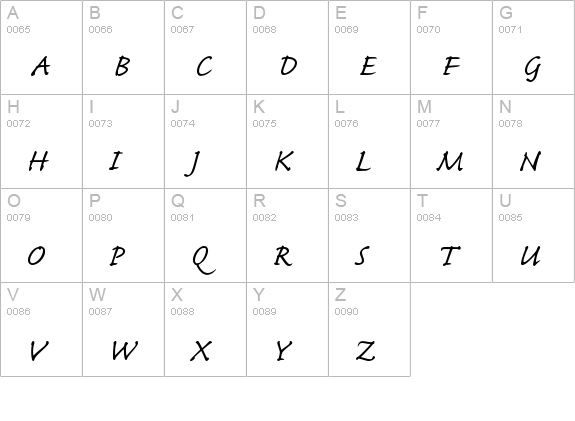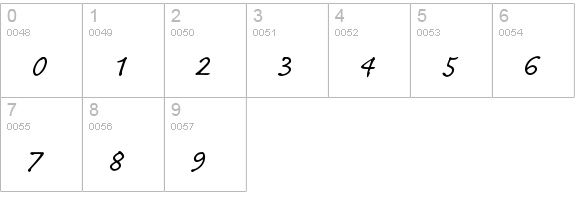
Caflisch Script Regular Font Details
Caflisch Script Regular is the standard, neutral variant in the Caflisch typeface family \xE2\x80\x94 well suited to general body text, paragraphs, and standard typographic work.
Caflisch Script Regular font is an elegant and sophisticated typeface that exudes a classic charm. With its flowing lines and graceful curves, this font captures the essence of handwritten script, adding a touch of elegance to any project. Designed by Robert Slimbach, Caflisch Script Regular font offers a unique blend of old-world charm and contemporary design. Its delicate strokes and gentle letterforms create a harmonious balance, making it perfect for a wide range of applications, including invitations, packaging, logos, and more. One of the most appealing features of Caflisch Script Regular font is its versatility. It can easily adapt to various design styles and themes, whether it's a traditional wedding invitation or a modern logo for a tech startup. This font effortlessly adds a touch of sophistication to any project, elevating it to a whole new level. But what makes Caflisch Script Regular font even more impressive is that it's free! That's right, this beautiful typeface is freely available to download at FontsMarket.com. Whether you're a professional designer or someone looking to add a touch of elegance to personal projects, Caflisch Script Regular font is the perfect choice. So why wait? Go ahead and download Caflisch Script Regular font from FontsMarket.com today and let its timeless beauty enhance your designs. Whether you're creating wedding invitations, branding materials, or simply adding a touch of elegance to your personal projects, this font is sure to impress. With its free availability and stunning design, Caflisch Script Regular font is a must-have for any designer or creative enthusiast.